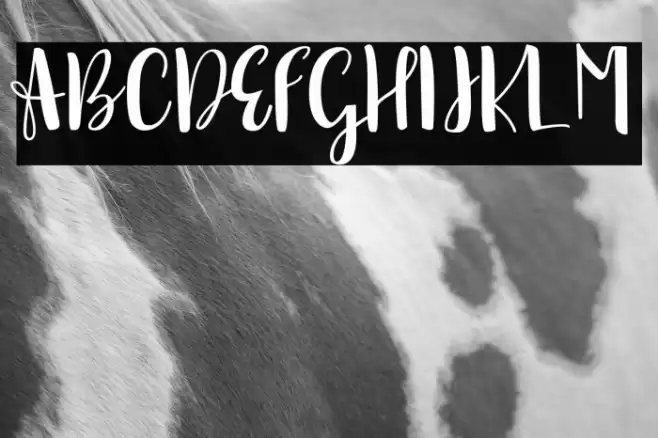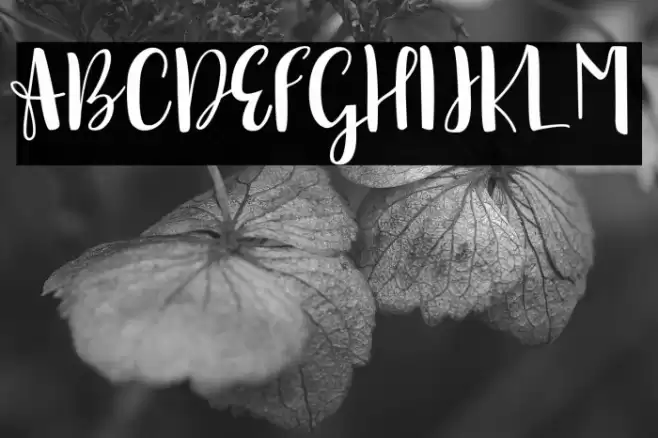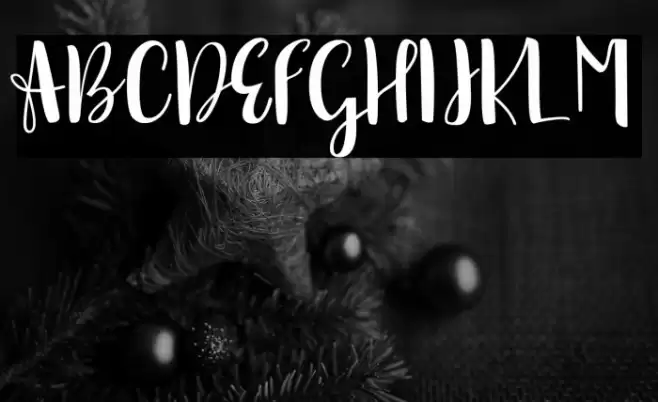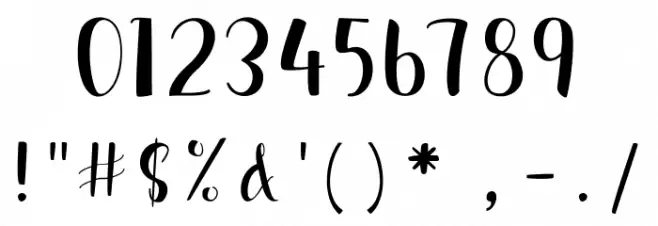
sonya demo version Regular Font
sonya demo version Regular Description
This font features a playful and energetic script style with a hand-drawn appearance. The uppercase letters are bold and dynamic, with varying stroke widths that add a sense of movement and flair. The lowercase letters maintain a consistent flow, with elegant loops and curves that enhance its handwritten charm. The numerals are bold and slightly whimsical, matching the overall playful aesthetic. Special characters are creatively styled, maintaining the font's lively and artistic feel. This font is perfect for projects that require a personal touch and a sense of creativity.
A playful, hand-drawn script font with bold, dynamic strokes and elegant curves from Uncategorized fonts.